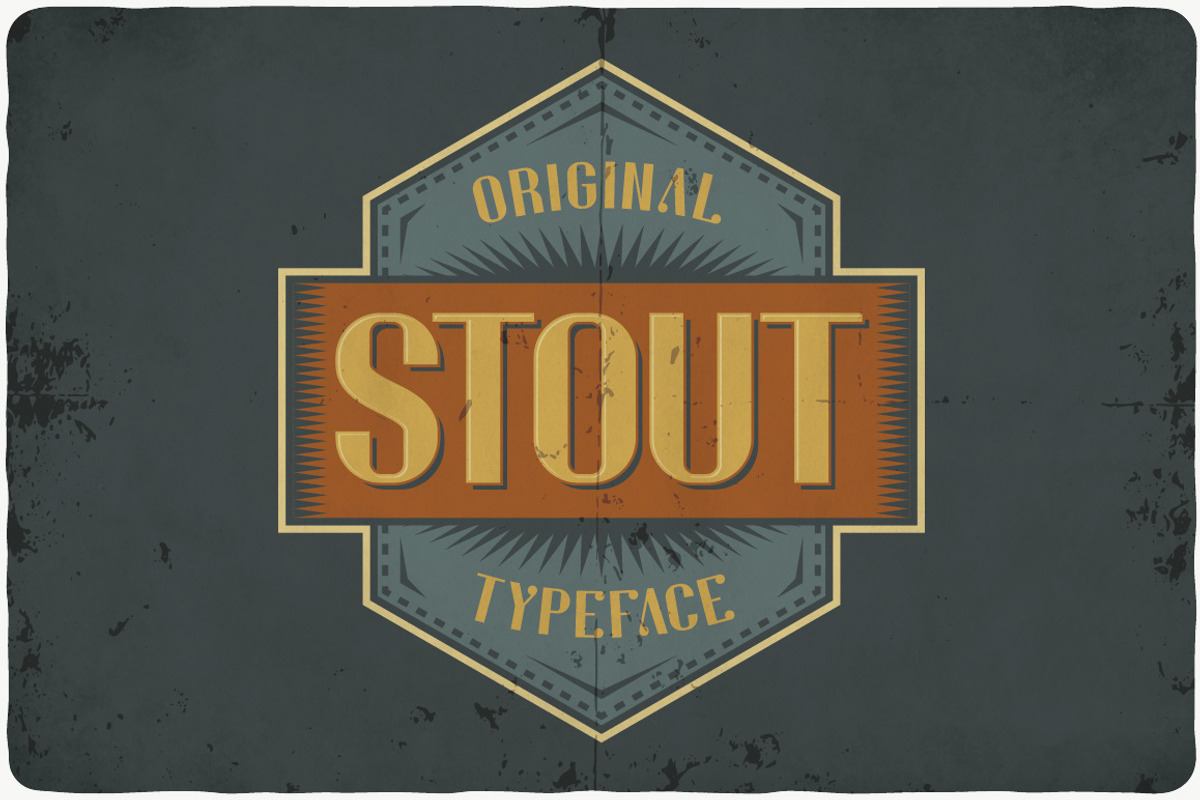
Stout Typeface Free Download is a bold, heavyweight font designed to make a lasting impression. With its thick strokes, strong presence, and clean geometric structure, this typeface is perfect for posters, logos, packaging, headlines, branding, and editorial layouts that need power and clarity.
Its no-nonsense style combines modern minimalism with vintage punch—ideal for breweries, sports designs, product labels, and more. Whether you're going for rugged and masculine or simply want your text to stand tall and proud, Stout Typeface Free Download delivers strength with style.
This font excels in both print and digital use, standing out without overpowering your overall design.